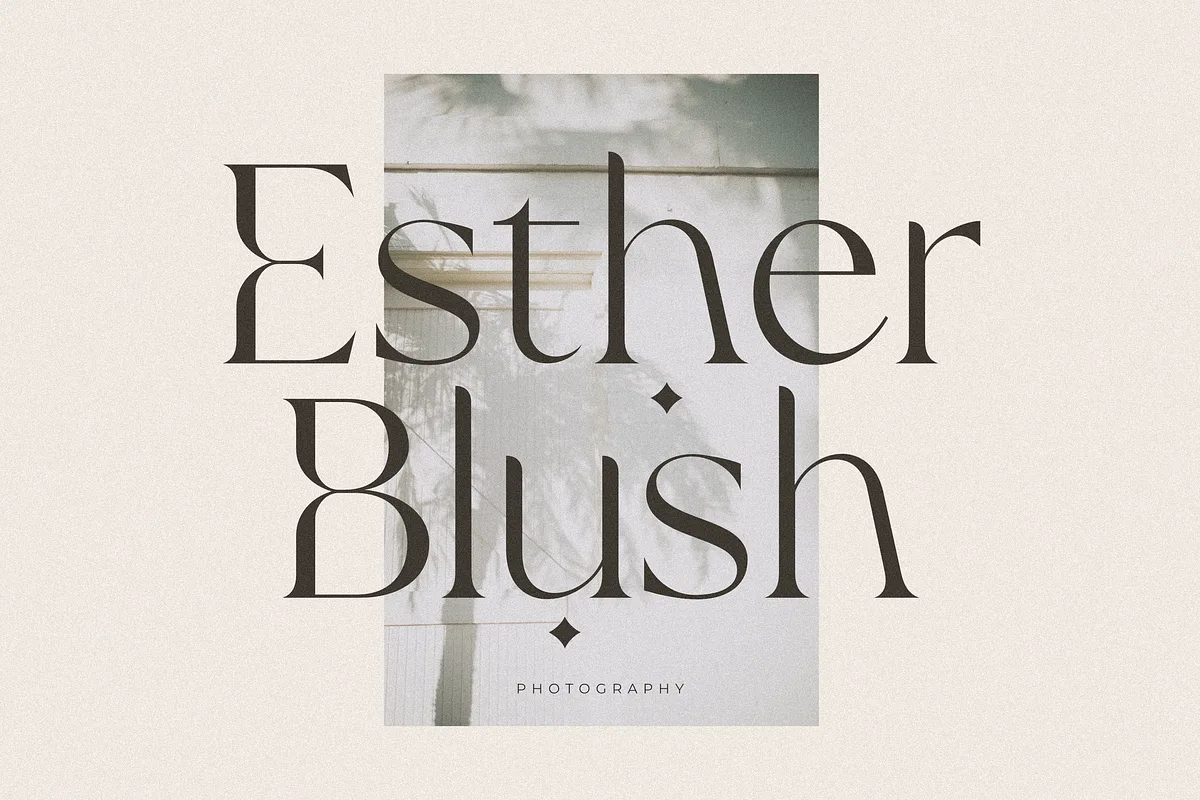
Bulgari Font
Bulgari is a modern serif font by Sans and Sons with an elegant style. Every letter has a unique and beautiful touch. It is perfect for branding, logos, invitations, master heads, and more.
Bulgari font preview — sample text
Bulgari font alphabet, numbers and glyphs
Bulgari font style preview